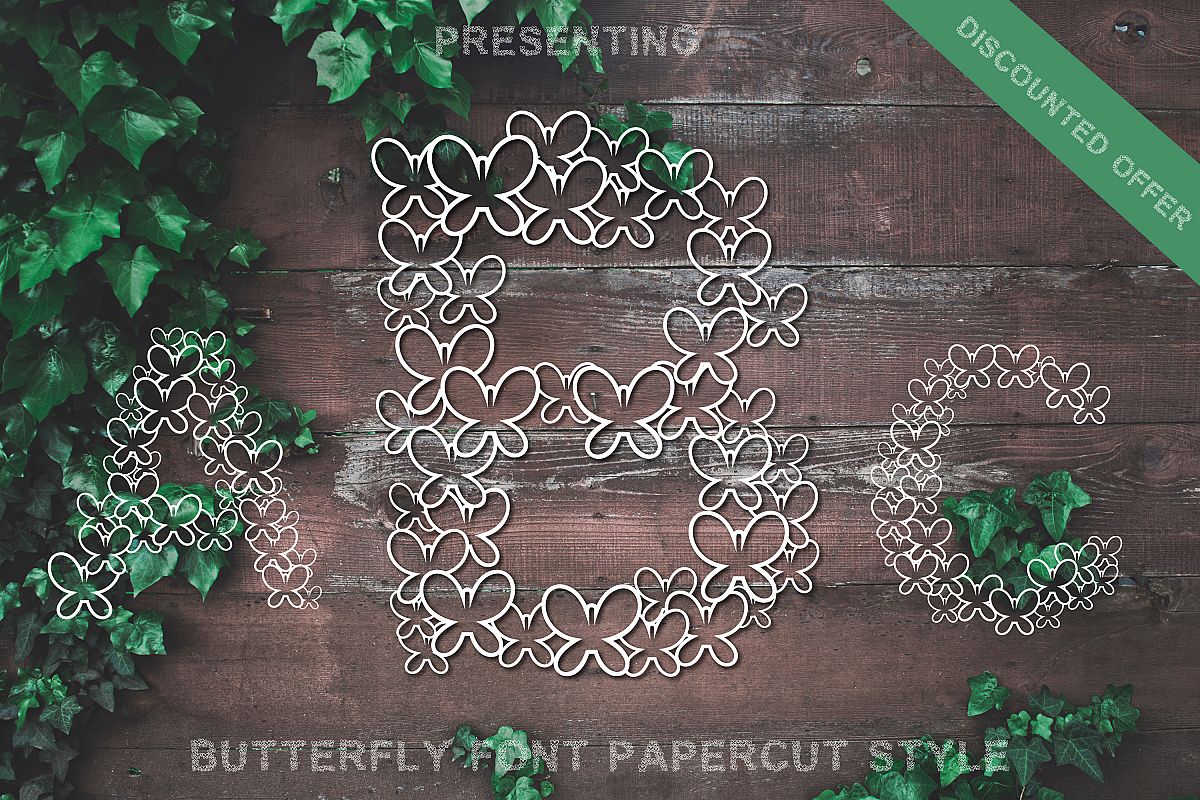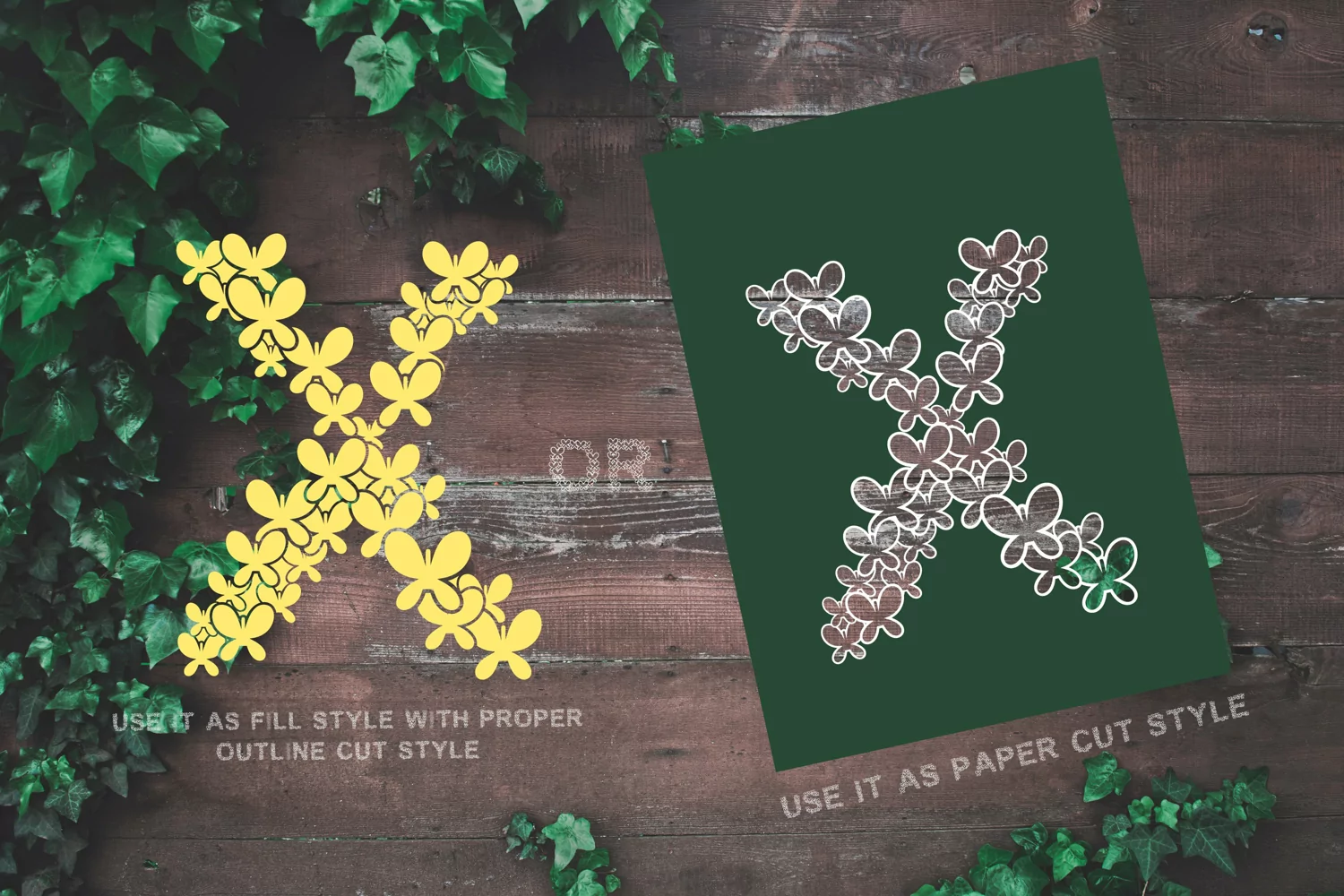
Butterfly Font - Alphabets Butterfly Shapes for Crafters
Presenting Cute font for you. This Special Paper Cut Butterfly Font can be used in tons of projects specially in child and new born projects. You can use it for craft purpose and this will looks great on shirts, printing material and other stuff.
2- UPPER Case only Letters A to Z and 0 to 9
3- Super Cute and Creative